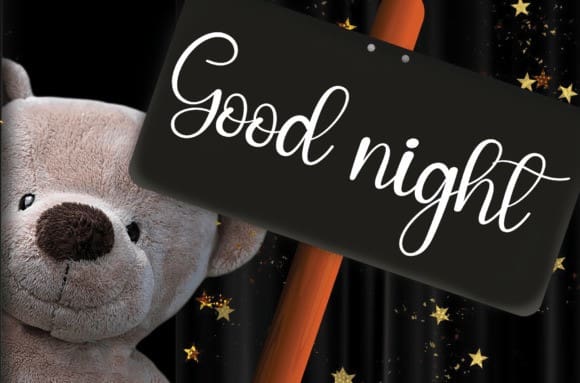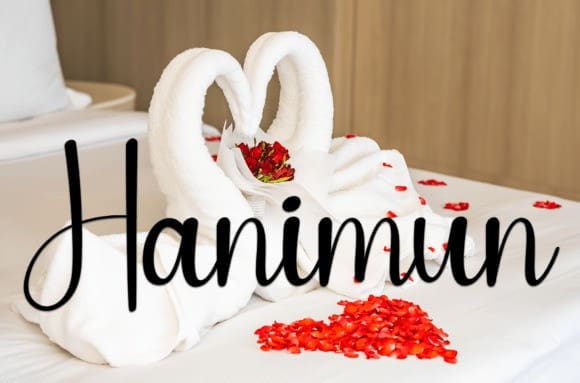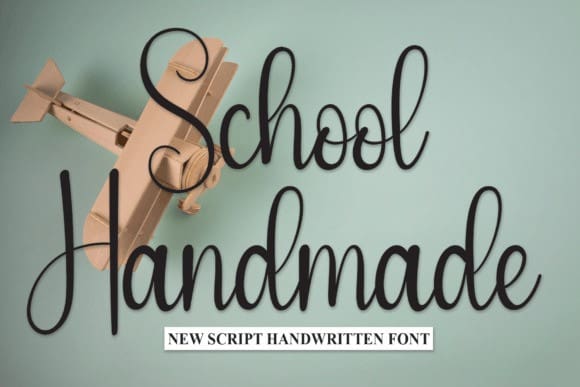
School Handmade Font
School Handmade Font is a sweet and friendly handwritten font. Fun and relaxed, this font is ideal for writing wedding invitations, cards, or any other design that might need a lovely touch!